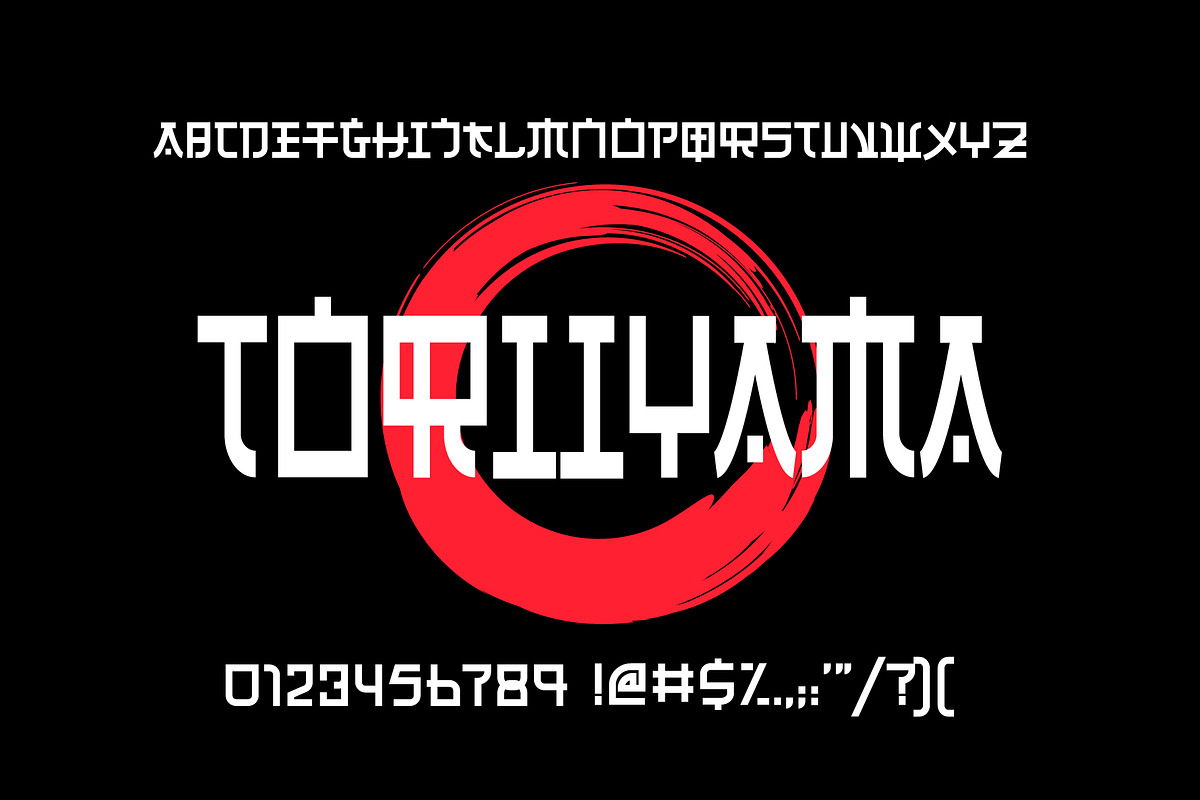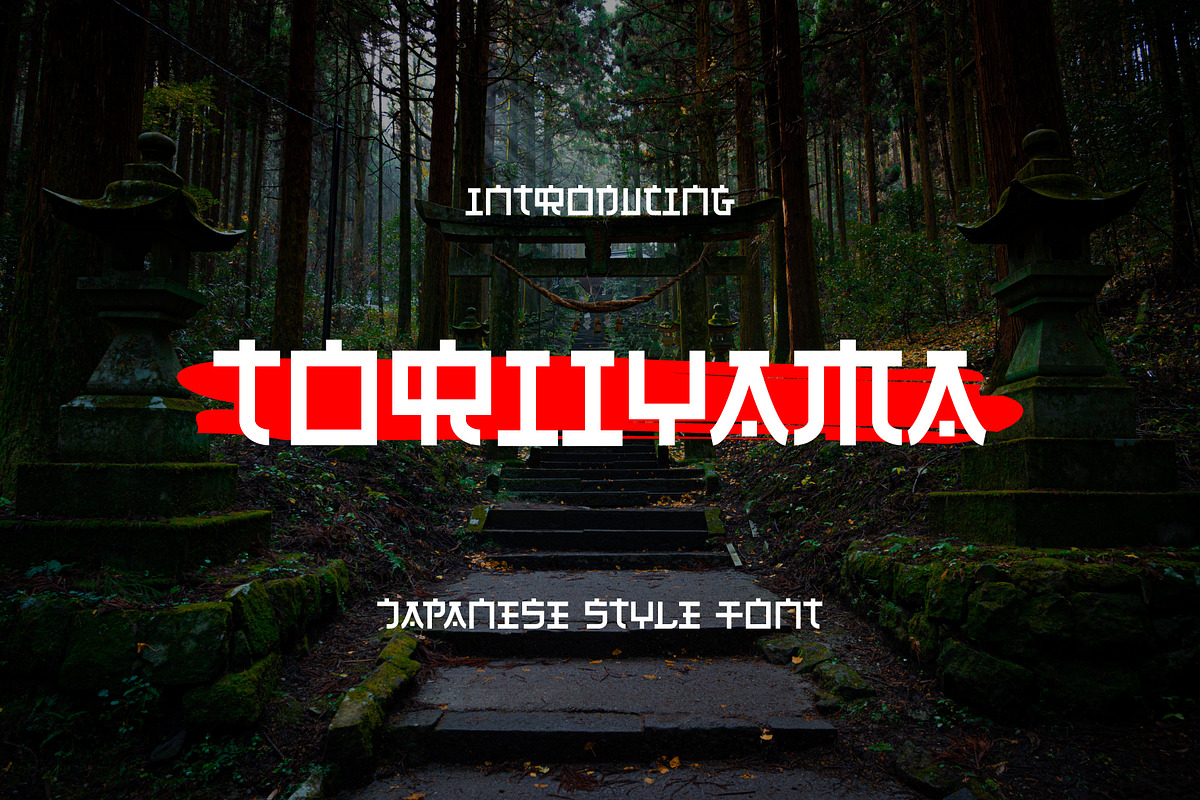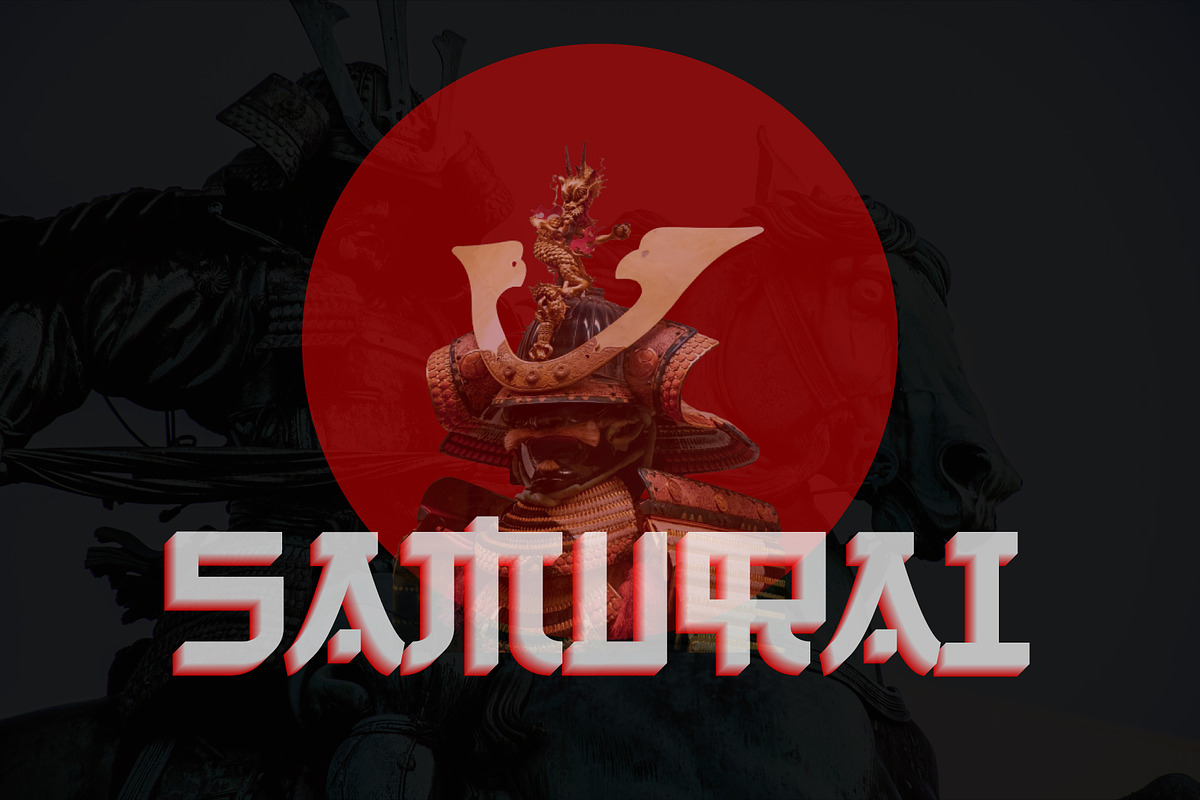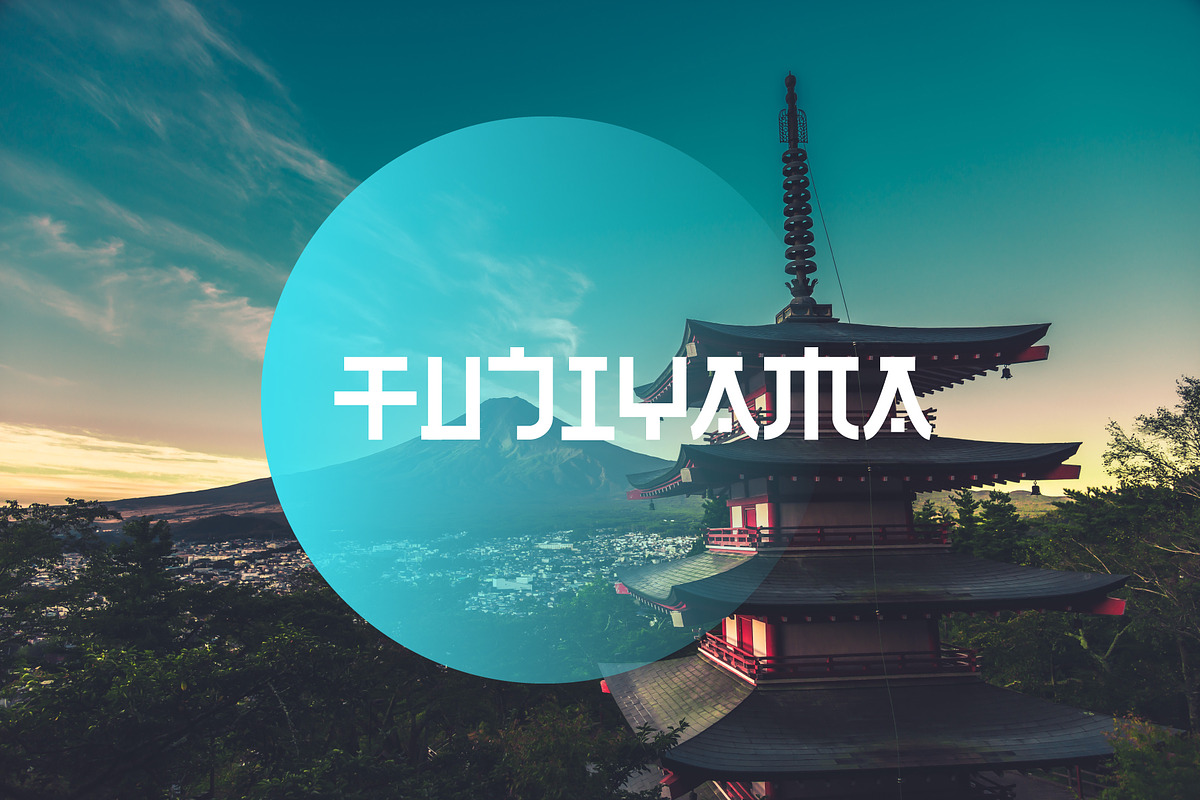
Toriiyama - Japanese Style Font
Introducing Toriiyama, a simple japanese style display font. So perfect for you who needs a typeface for logo designs, magazine, social media, brochure, and many more.